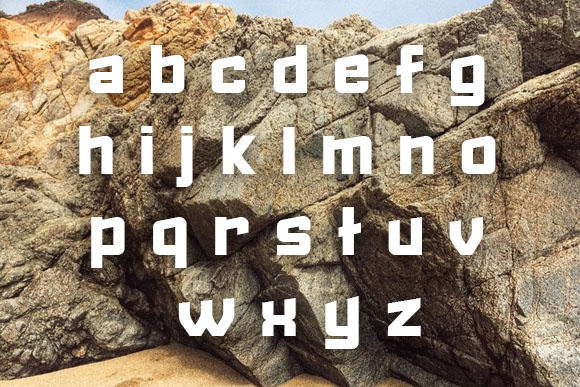
Introducing Failed Font: The Ultimate Techno Font for Designers and Crafters
Are you tired of using the same old fonts for your design projects? Look no further! Failed Font is a nice and clean techno font family that is perfect for creating stunning posters, headlines, flyers, and more. In this article, we’ll dive into the world of Failed Font and explore its features, benefits, and uses.
What is Failed Font?
Failed Font is a modern techno font family designed to add a touch of futurism and sleekness to your designs. Its clean lines, geometric shapes, and minimalist aesthetic make it perfect for designs that require a bold and edgy look. Whether you’re a graphic designer, a crafty DIY enthusiast, or a marketing professional, Failed Font is an excellent addition to your font library.
Key Features of Failed Font
- Clean and Minimalist Design: Failed Font boasts a clean and minimalist design that ensures your text remains legible and easy to read, even at small font sizes.
- Techno Aesthetic: The font’s techno aesthetic gives it a futuristic and cutting-edge look that’s perfect for designs that require a bold and modern feel.
- Versatile: Failed Font is versatile and can be used for a wide range of design projects, including posters, headlines, flyers, brochures, and more.
- Easy to Read: Despite its bold and edgy design, Failed Font remains easy to read, making it perfect for body text and headings.
Benefits of Using Failed Font
So, why should you use Failed Font for your design projects? Here are some benefits of using this amazing font:
- Adds Visual Interest: Failed Font adds visual interest to your designs, making them stand out from the crowd.
- Enhances Brand Identity: The font’s unique design helps to create a strong brand identity that sets your business apart from competitors.
- Increases Engagement: The bold and edgy design of Failed Font grabs attention and increases engagement, making it perfect for marketing materials and advertisements.
Use Cases for Failed Font
Failed Font is perfect for a wide range of design projects, including:
- Posters and Flyers: Create stunning posters and flyers that grab attention with Failed Font.
- Headlines and Logos: Use Failed Font to create bold and eye-catching headlines and logos that set your brand apart.
- Brochures and Catalogs: Add a touch of modernity to your brochures and catalogs with Failed Font.
- Social Media Graphics: Create engaging social media graphics that stand out from the crowd with Failed Font.
Tips for Using Failed Font
Here are some tips for using Failed Font effectively:
- Pair with Other Fonts: Pair Failed Font with other fonts to create a unique and visually appealing design.
- Experiment with Colors: Experiment with different colors to find the perfect combination that complements your brand.
- Use for Headlines and Titles: Use Failed Font for headlines and titles to add visual interest and create a bold statement.